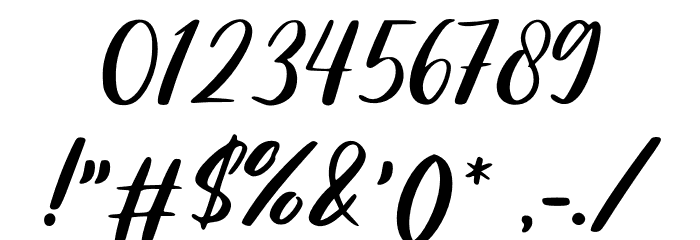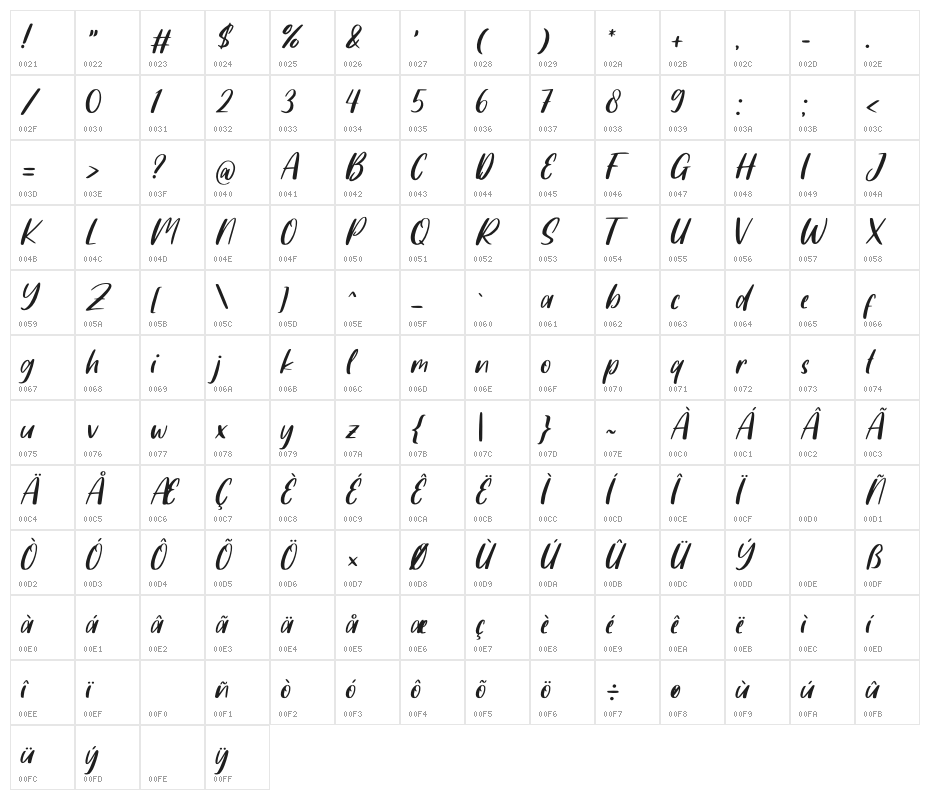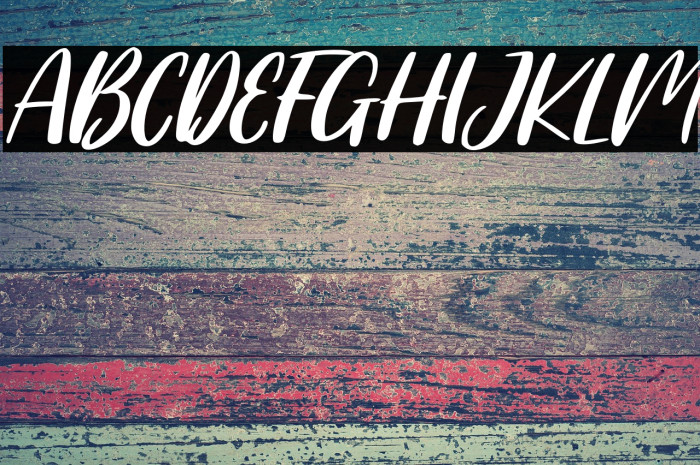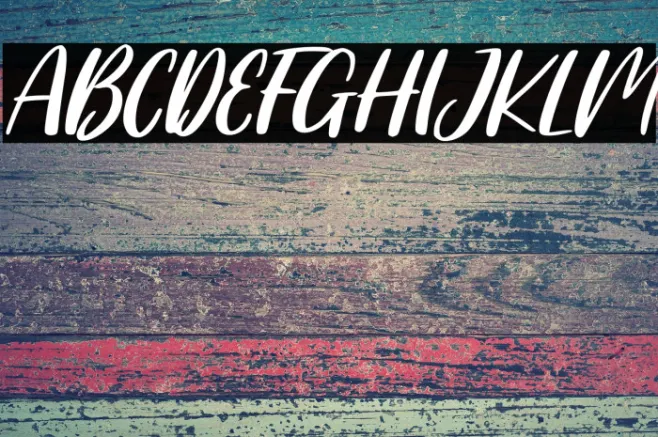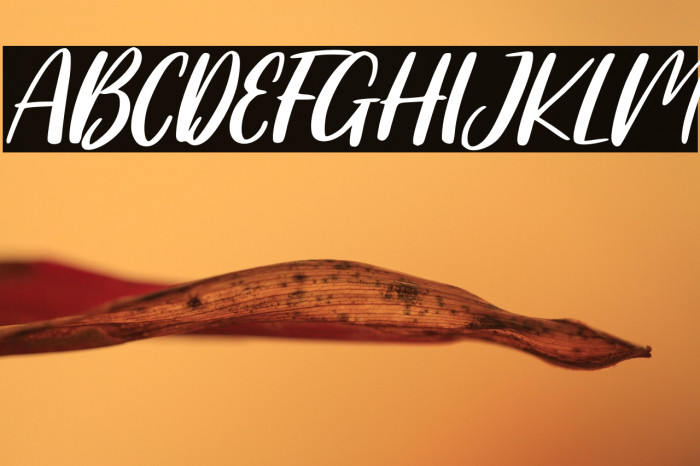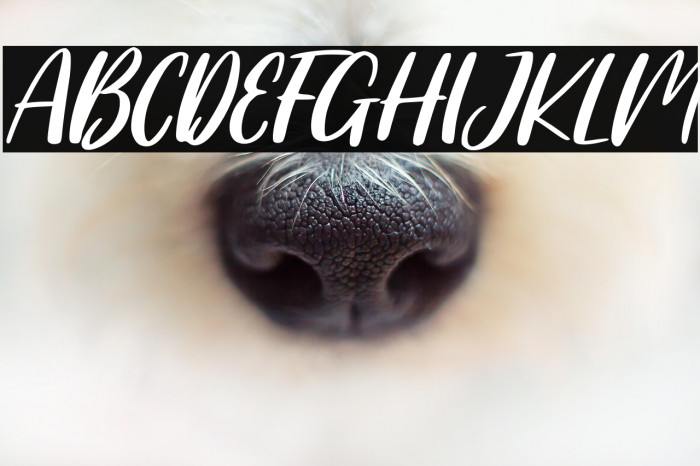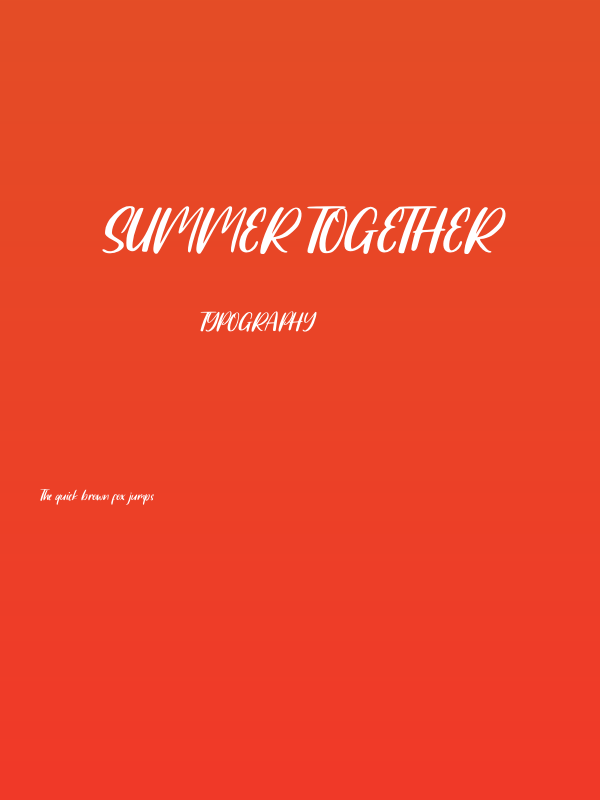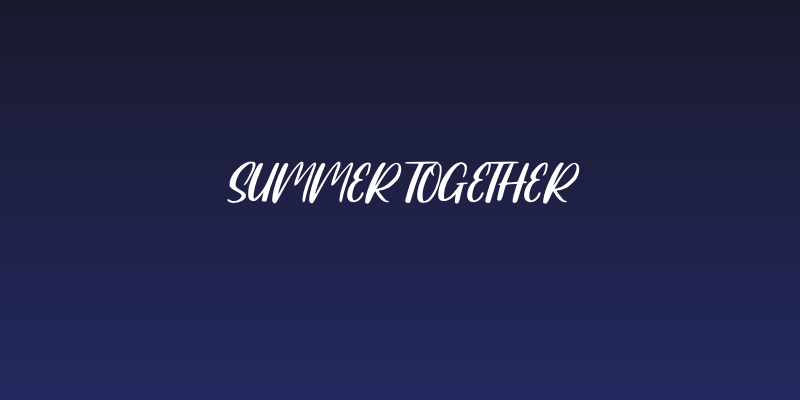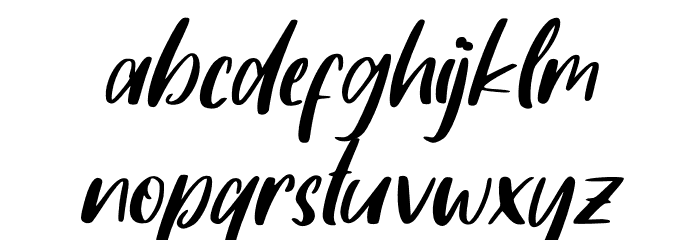
Summer Together Font
Summer Together Description
This font exudes a lively and energetic vibe, characterized by its flowing, cursive script style. The letters are elegantly slanted, giving a sense of motion and fluidity. The strokes vary in thickness, adding a dynamic contrast that enhances its visual appeal. The uppercase letters are bold and sweeping, while the lowercase letters maintain a consistent rhythm, creating a harmonious balance. The numerals and special characters are designed to match the overall aesthetic, ensuring a cohesive look across all text elements. This font is perfect for projects that require a touch of elegance and personality.